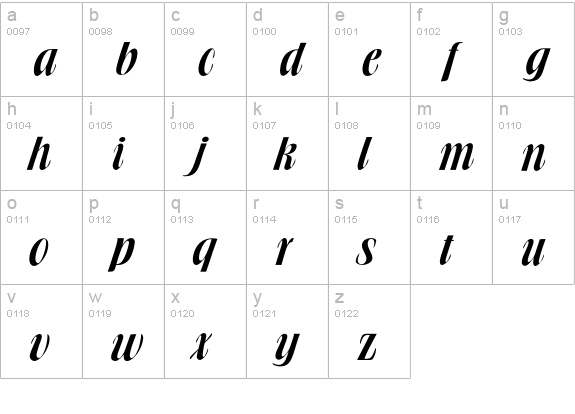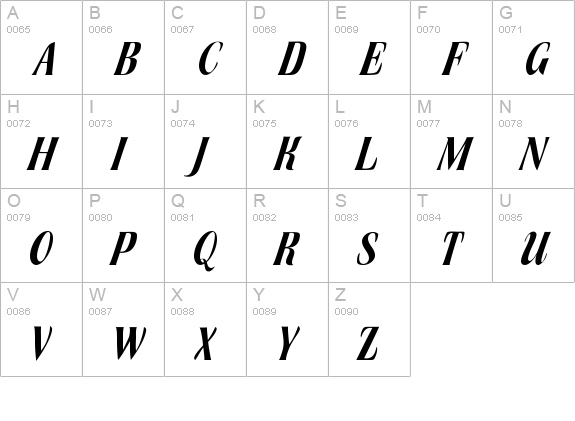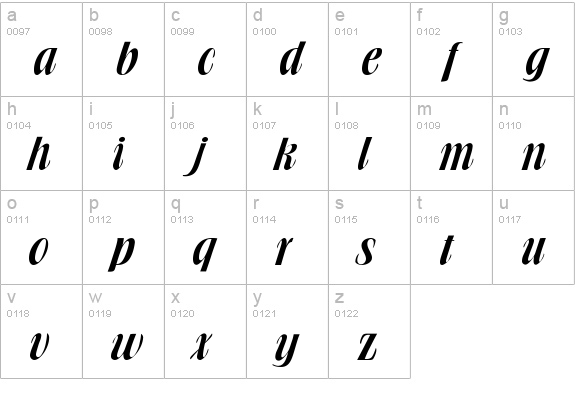
BookJacket font is a classic and elegant typeface perfect for adding a touch of sophistication to your designs. With its timeless design and versatile style, this font is ideal for various projects such as book covers, invitations, branding, and more. The clean lines and sharp serifs of BookJacket font make it easy to read while also exuding a sense of refinement. What sets BookJacket font apart is that it is available for free download at FontsMarket.com. This means you can enhance your creative projects without any added cost. Don't miss out on the opportunity to elevate your designs with this beautiful and accessible font. Download BookJacket today and add a touch of elegance to your next project.